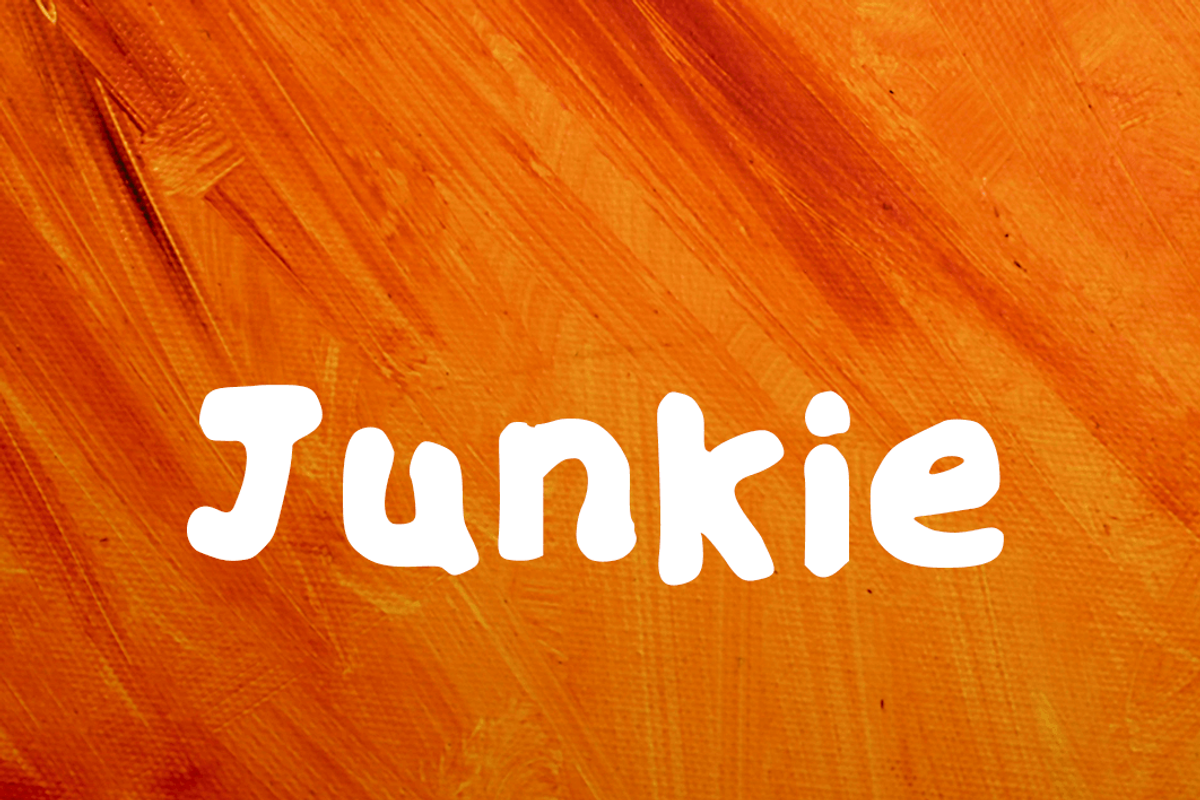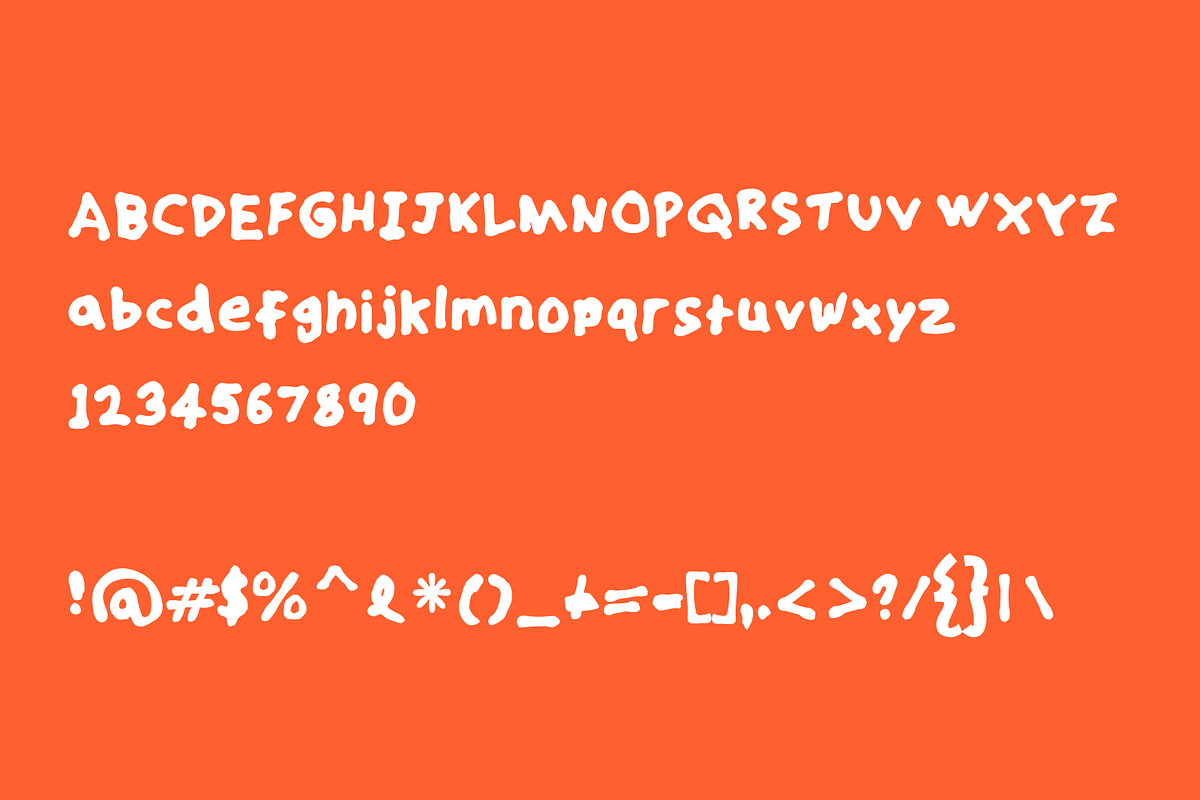
Junkie
Junkie Font: Bold, Edgy, and Full of Personality
Meet Junkie, a bold sans serif font with a splotchy, hand-drawn charm that’s perfect for projects craving a raw, authentic vibe. From gritty posters to edgy branding, Junkie combines rugged, textured strokes with excellent readability, making it ideal for designs that stand out.
Why You’ll Love It:
Unique Handcrafted Look: Imperfect yet striking, Junkie’s textured strokes give a gritty, organic touch to your projects.
Versatile Use: Perfect for posters, headlines, branding, DIY aesthetics, or any design requiring an edgy, grungy feel.
Bold and Readable: Balancing personality with clarity, Junkie ensures your message gets noticed.
Elevate your designs with the bold, handcrafted style of Junkie—where rugged charm meets modern creativity.